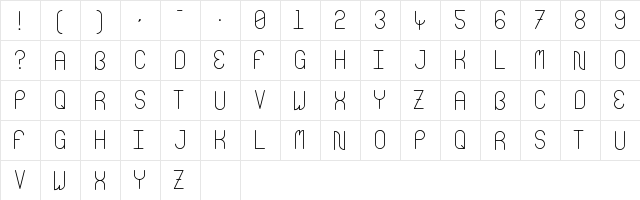
Aquatic Shellfish Regular
Design Context for Aquatic Shellfish Typeface
Aquatic Shellfish takes a measured approach to typography — its balanced proportions and neutral character make it a reliable workhorse for both digital and print work.
Pro Tip: Use Aquatic Shellfish in both headline and body roles to test its range before committing to a single application.